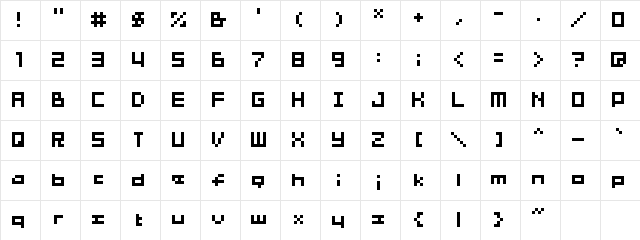
04b 03b
Style: 03b
Design Context for 04b
04b is a composed and adaptable typeface that performs quietly and consistently across a wide range of design contexts.